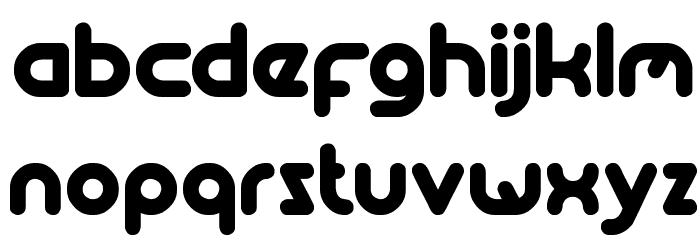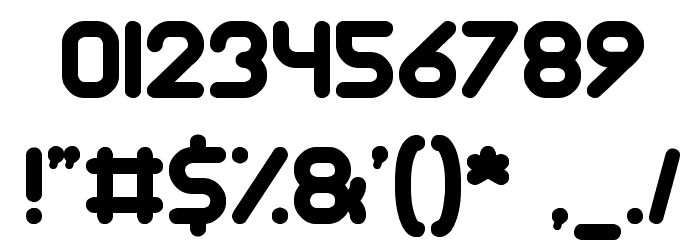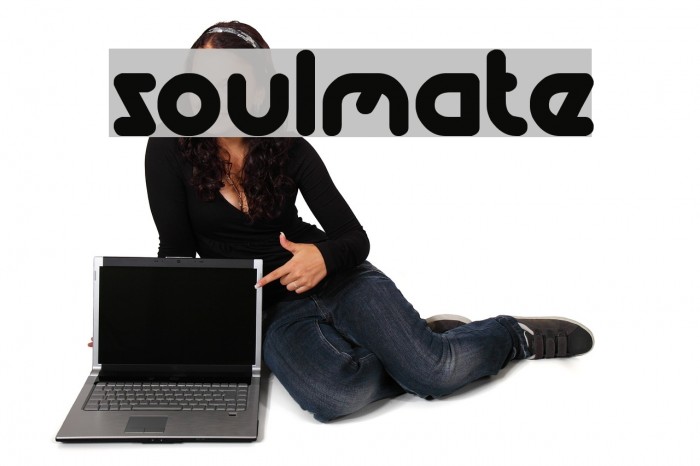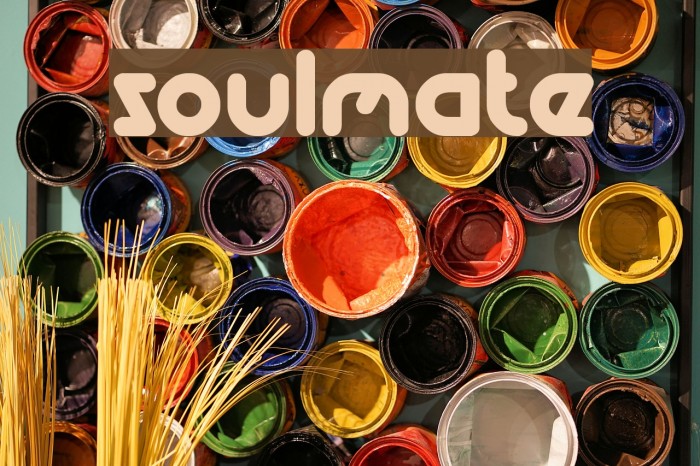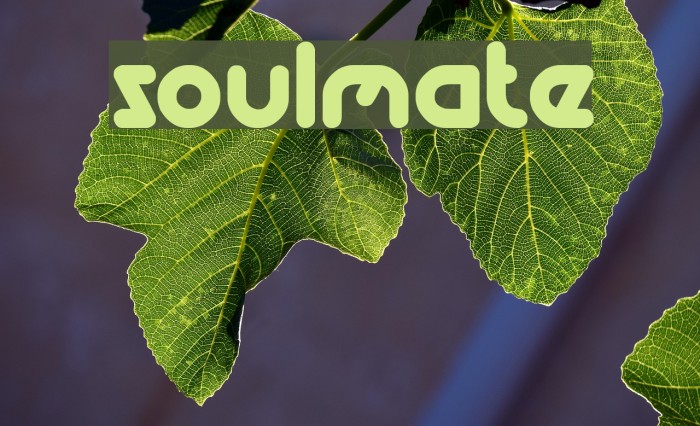
soulmate Font
This font features a playful and rounded design, characterized by its smooth curves and bold appearance. The letters are evenly spaced, providing a balanced and harmonious look. The uppercase and lowercase letters share a consistent style, with rounded edges that give a friendly and approachable feel. The numbers and special characters maintain the same rounded aesthetic, ensuring uniformity across all glyphs. This font's boldness and unique style make it suitable for projects that require a modern and fun touch.
A playful, rounded font with a bold and friendly appearance.
- Proposed Projects: Ideal for children's books, playful branding, casual invitations, and modern advertising.